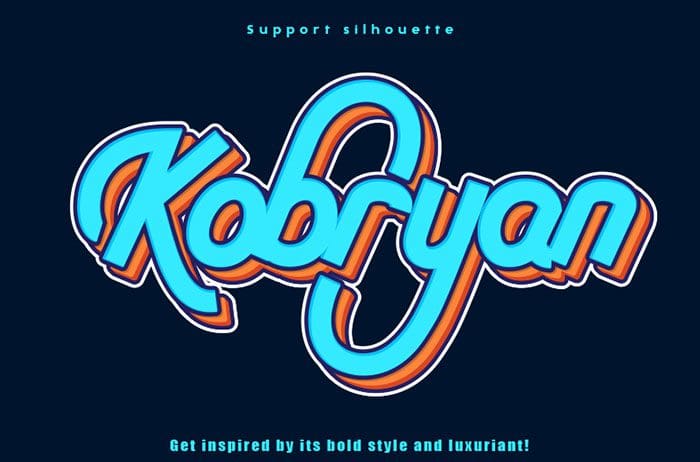
Free Kobryan Script Font
Kobryan Script Font
Free Kobryan script font is a bold script typeface and is uniquely crafted to give your designs a monogram appeal. The style in this font include: Regular. Designed this font by Thomas Aradea. You can also search more freeĀ Script Fonts.